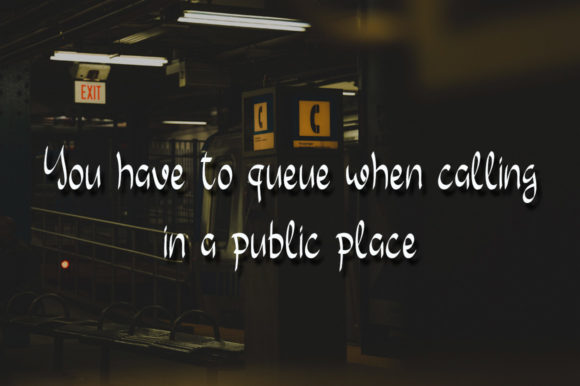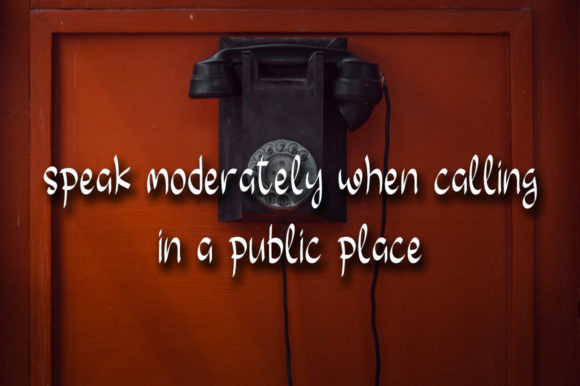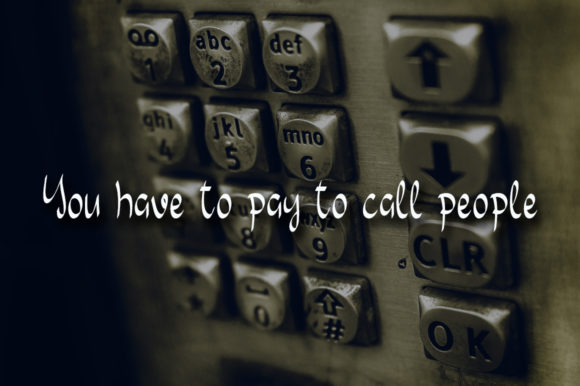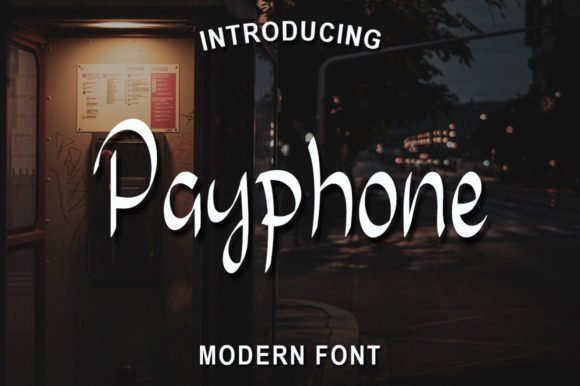
Introduction to Payphone Font
Payphone is a cute yet elegant script font.
Suitable to a wide variety of designs due to its neat and simple style, this font has the potential to become your favorite go-to font, no matter the occasion .
Key Features of Payphone Font
Why Choose Payphone Font?